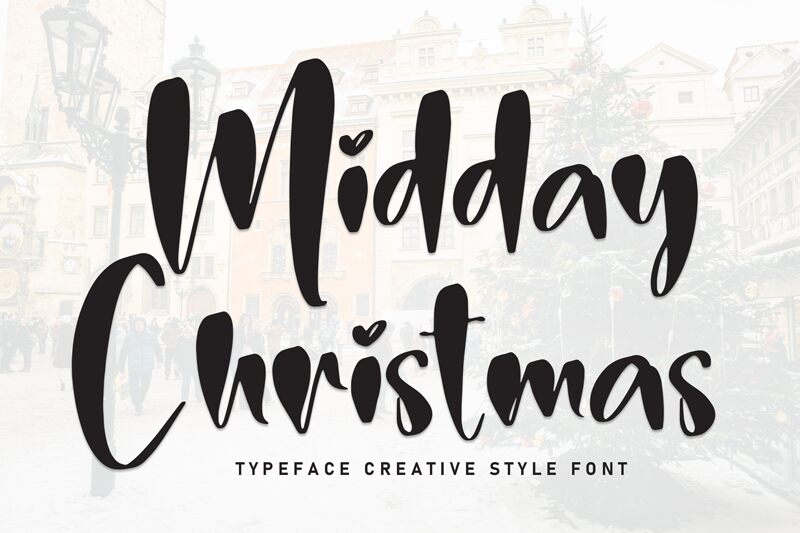
Midday Christmas
Midday Christmas font is a free brush font designed by Scratchones, characterized by its handwritten style and artistic flair. The modern aesthetic holds expressive strokes, granting an overall casual elegance to this typeface. The letters appear friendly with their intended irregularity and messy exposure of certain edges, making the characters artistic even if they appear on the minimal side.
Give all your commercial projects a friendly touch with Midday Christmas such as greeting cards, t-shirts, apparel items (hats), or textiles designs (tote bags). Use it in advertising projects like flyers and brochures or in magazine covers and headers for blogs. It’s also great for branding purposes (logos), labels and stickers, online posts (Pinterest, Instagram).